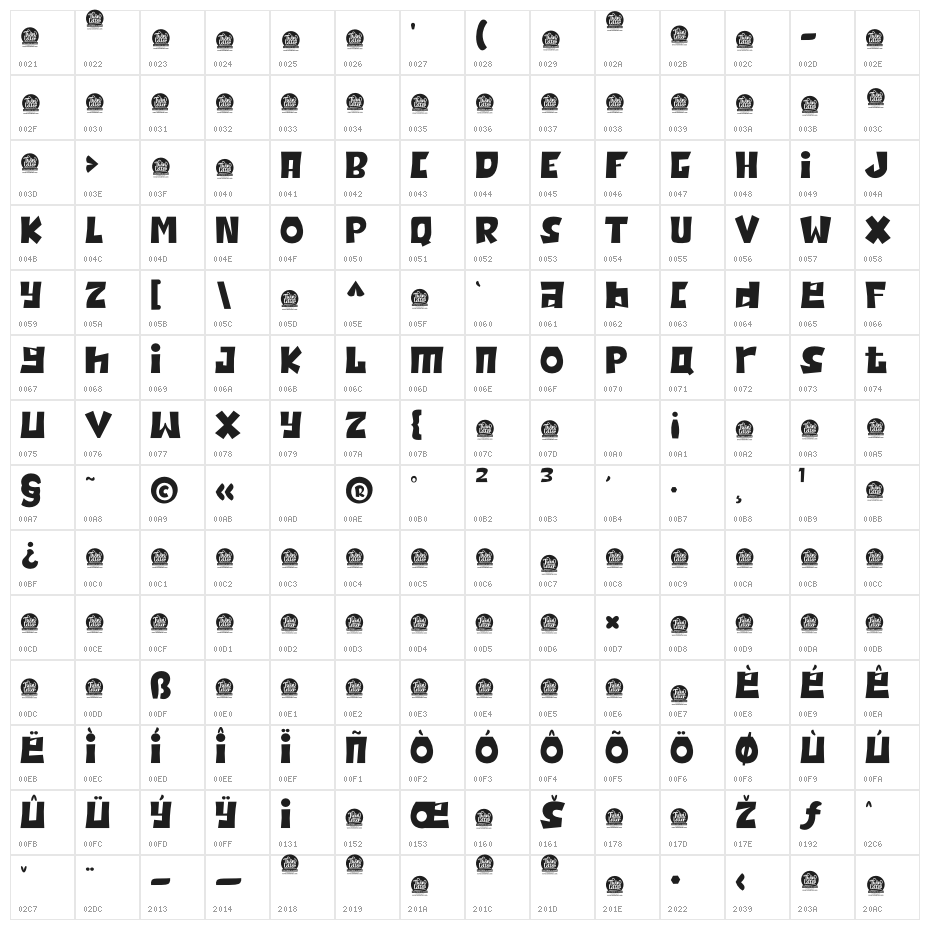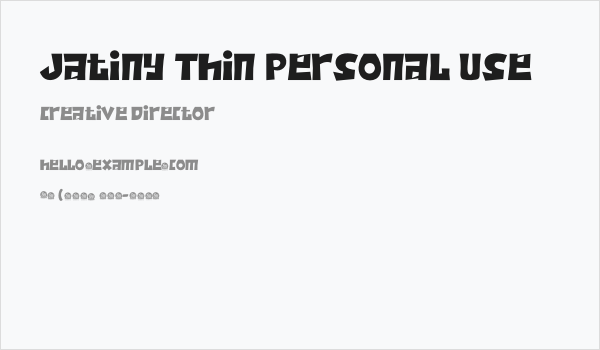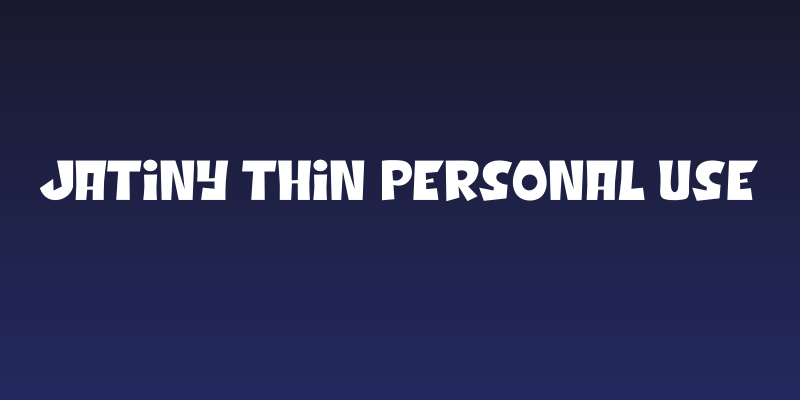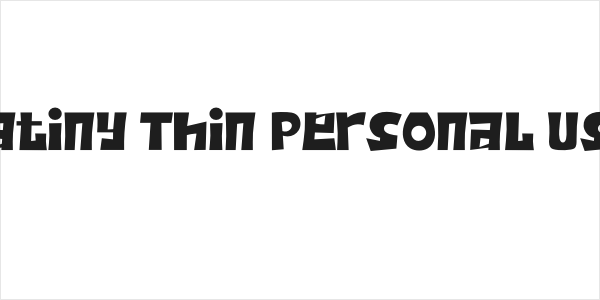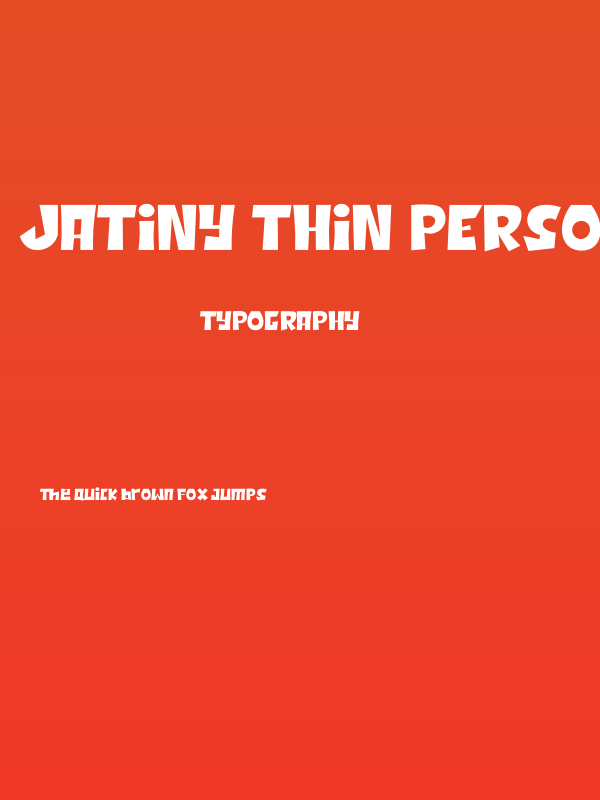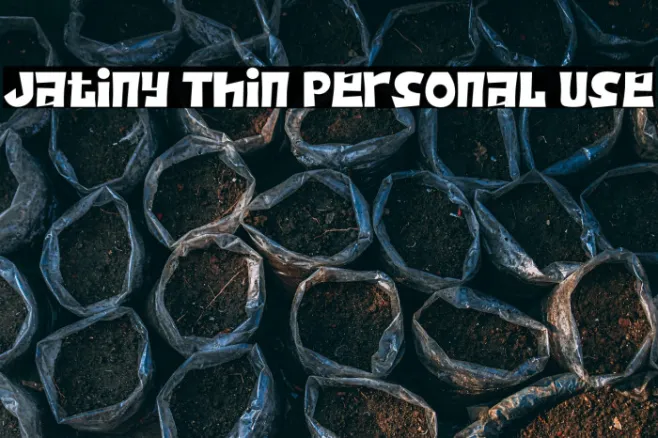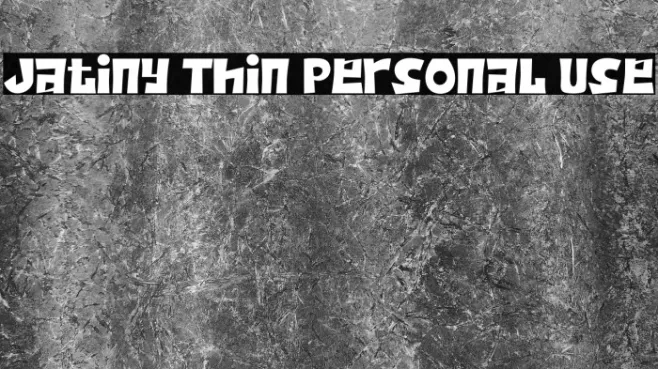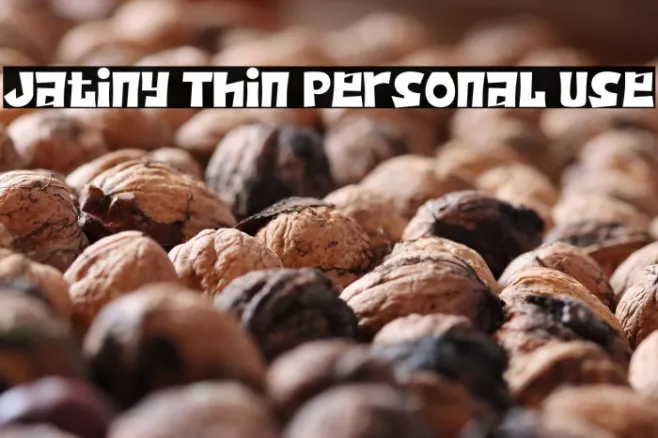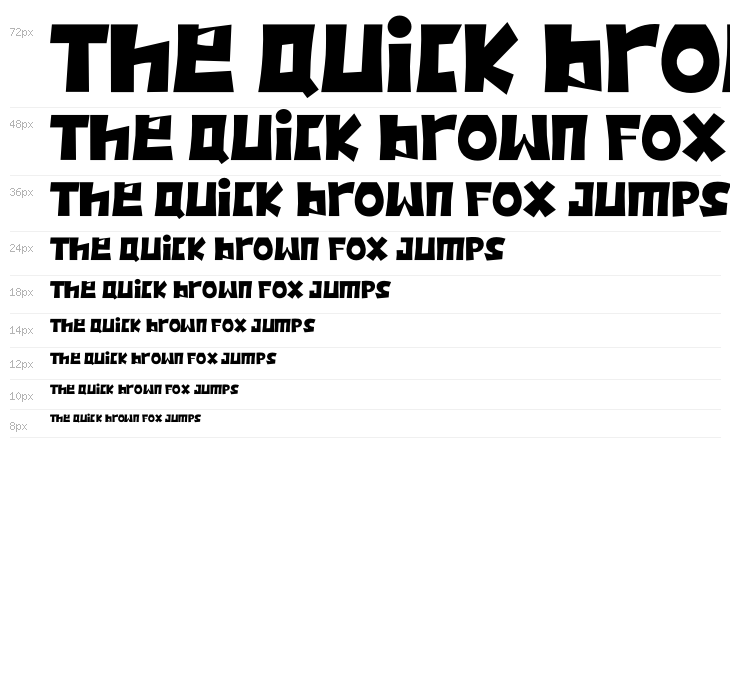
Jatiny Thin Personal Use Font
Jatiny Thin Personal Use Description
This font features a bold and dynamic design with a playful, geometric style. The characters are crafted with sharp angles and unique shapes, giving them a distinct and eye-catching appearance. The uppercase and lowercase letters maintain a consistent style, with some letters having exaggerated curves and others featuring straight, angular lines. The numbers and special characters follow the same design principles, ensuring a cohesive look across all elements. This font is perfect for projects that require a bold and creative touch, making it ideal for headlines, posters, and branding materials.
| Proposed Projects | Ideal for headlines, posters, branding, and creative design projects. |